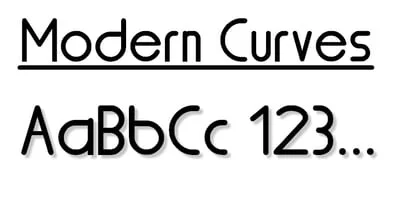
Modern Curves Font
Modern Curves Font offers designers a contemporary typeface that embodies fluid elegance and architectural sophistication with sleek refinement. However, for commercial use, you must purchase this font. You can download it for free for testing purposes only.
Modern Curves Font excels in sophisticated design applications including contemporary architecture firms, luxury automotive branding, modern furniture companies, high-end fashion labels, sleek technology interfaces, elegant jewelry packaging, progressive design studios, fluid art galleries, streamlined corporate identities, and innovative lifestyle campaigns. This flowing typeface brings architectural grace to cutting-edge design projects.
What makes Modern Curves Font truly exciting is its perfect fusion of geometric precision with organic flowing curves that create dynamic visual movement and contemporary elegance through fluid design principles. The font features smoothly crafted letterforms with aerodynamic proportions and sophisticated flow that convey innovation, luxury, and the seamless integration of form and function. Its modern personality and fluid sophistication make it ideal for brands embracing contemporary design, technological advancement, and audiences who appreciate sleek aesthetics, innovative engineering, and the beautiful harmony between geometric structure and organic movement.
The Modern Curves Font family typically includes multiple weights such as Light, Regular, Medium, and Bold with potential Italic variations that enhance its flowing character. These sophisticated options provide designers with complete contemporary styling while maintaining the font's distinctive fluid elegance and modern presentation across various design applications and architectural contexts.
Whether you're developing contemporary branding, creating architectural campaigns, or designing innovative marketing materials, Modern Curves Font delivers the modern authority and fluid sophistication that cutting-edge projects require. Its exceptional elegance and contemporary appeal make it invaluable for designers working with architecture firms, luxury brands, and innovation-focused organizations requiring typography that celebrates modern design principles, fluid aesthetics, and the seamless beauty of curves that define contemporary luxury and technological sophistication in today's design-conscious marketplace.